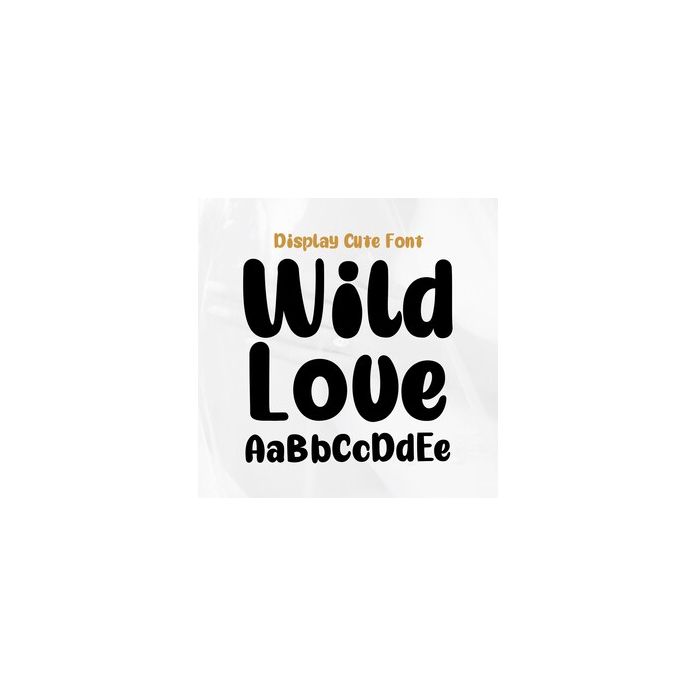
Wild Love Display happy display font, suitable for any happy quote model design. This font was originally created in a distinct and fresh comic style. but this font is packed with unique style Perfect for event projects, products, crafts, invitations, etc. Includes alphabet, numbers, and punctuation.